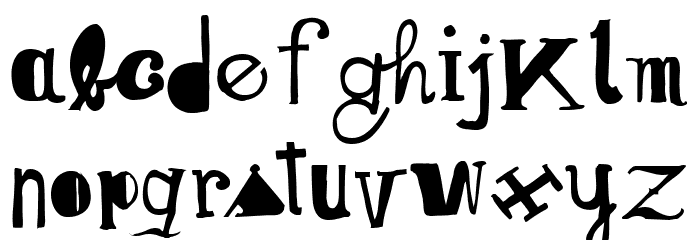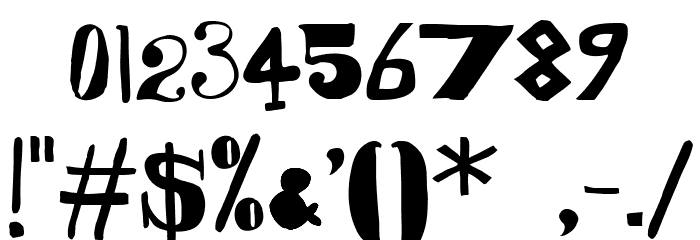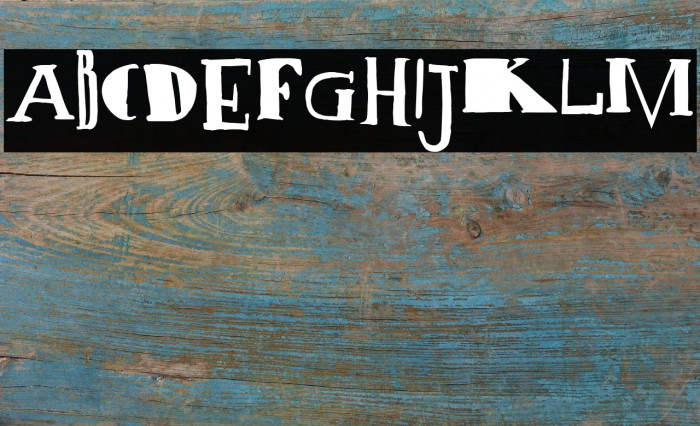
Senza cuore Font
This font features a highly decorative and eclectic style, characterized by its bold and irregular shapes. Each letter has a unique design, with some characters incorporating geometric elements and others displaying a more fluid, hand-drawn appearance. The uppercase letters are particularly striking, with dramatic contrasts in stroke width and unexpected angles. The lowercase letters maintain a playful and whimsical feel, while the numerals and special characters continue the theme of artistic unpredictability. Overall, this font exudes a sense of creativity and artistic flair, making it a standout choice for projects that require a bold visual statement.
A bold, decorative font with eclectic and artistic character designs.
- Proposed Projects: Ideal for artistic posters, album covers, creative branding, and any project that benefits from a bold, eye-catching typeface.
- Use Case: Headlines, Logos, Artistic projects